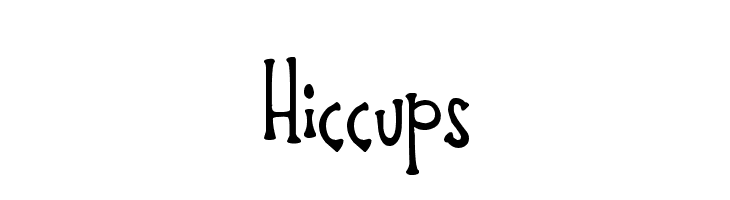
A playful, hand-drawn font with thick, rounded strokes and a whimsical style.
( Fonts by LyonsType )
A modern, geometric font with uniform stroke widths and a monospaced appearance.
( Fonts by Khurasan )
A playful, bold font with rounded, thick strokes and a friendly appearance.
A sleek, italicized font with a futuristic and dynamic design.
( Fonts by Hanoded )
A bold, playful font with rounded edges and a modern aesthetic.
( Fonts by Kurnia Setyadi )
A playful, bold font with rounded strokes and smooth curves.
A bold, italicized font with a modern and dynamic style.
( Fonts by Måns Grebäck )
A graceful script font with flowing, interconnected letters and elegant flourishes.